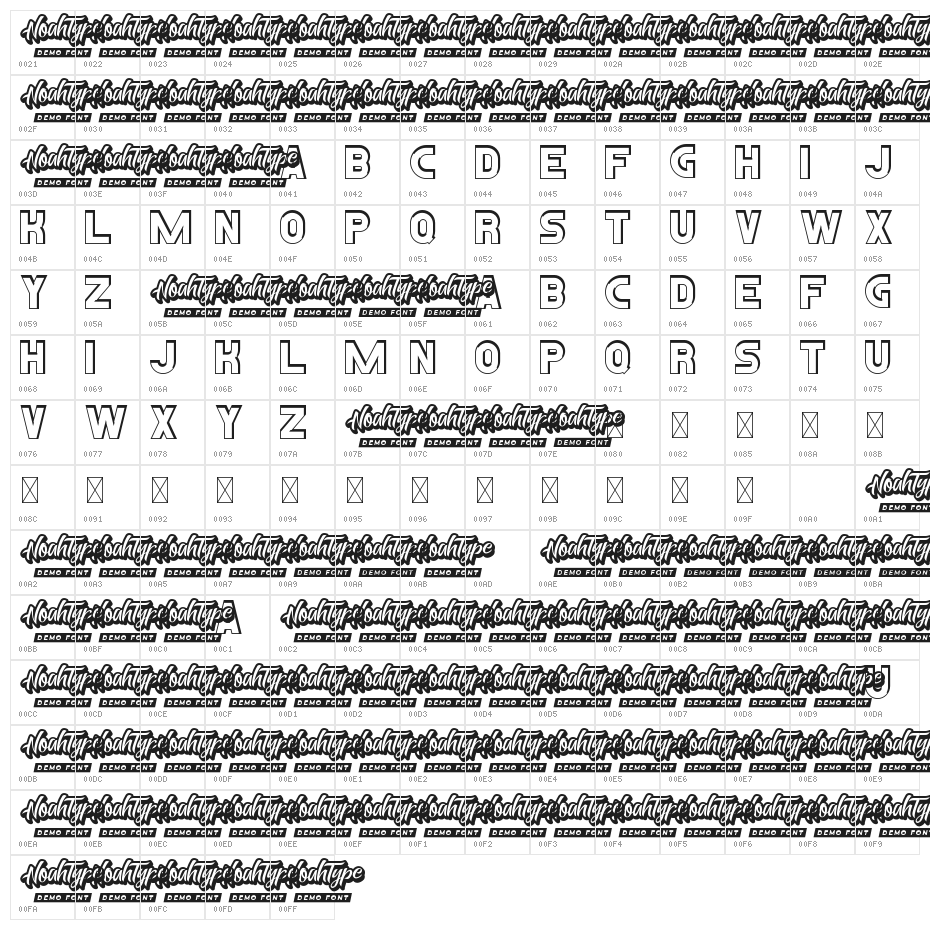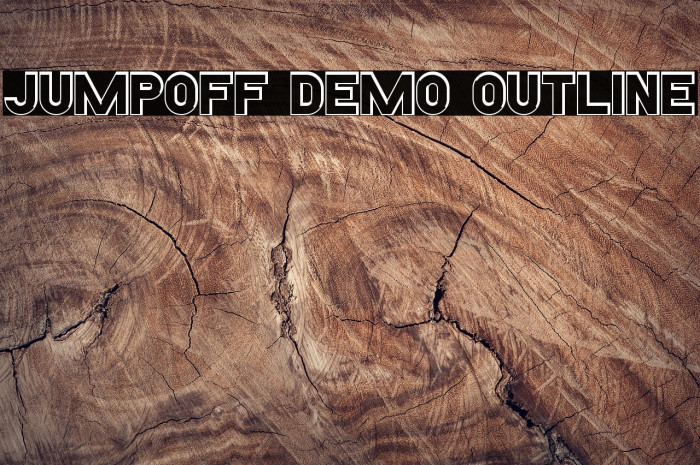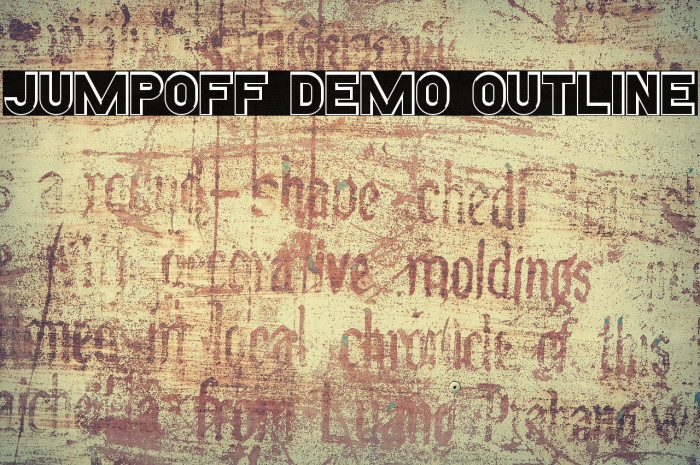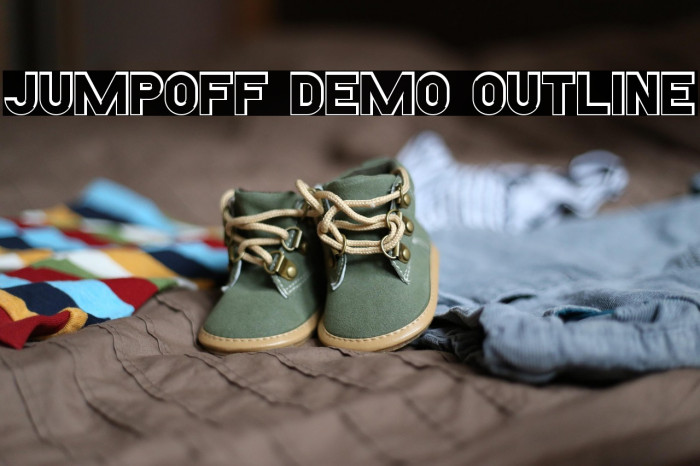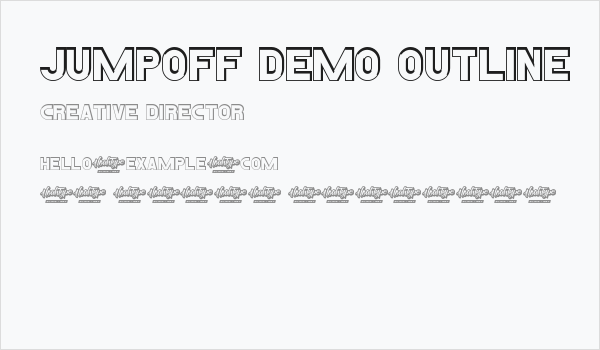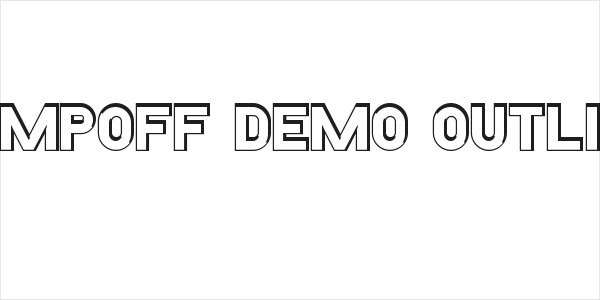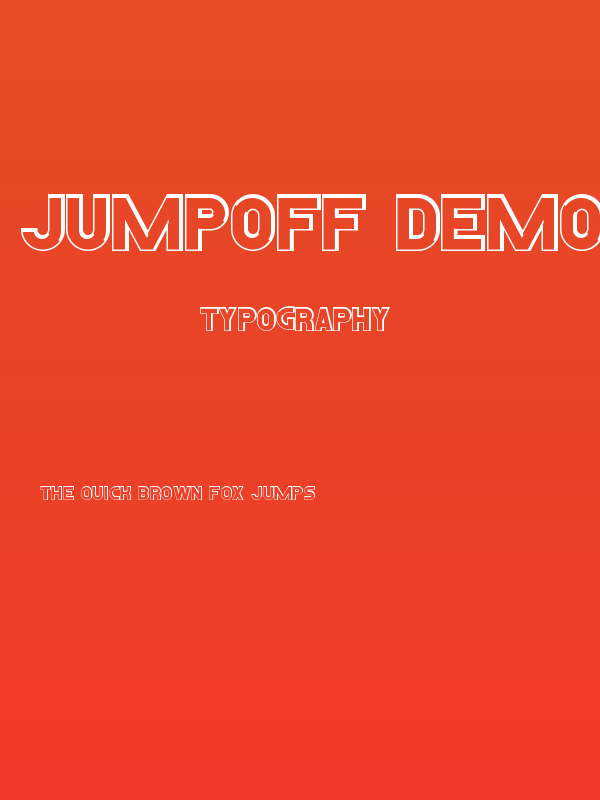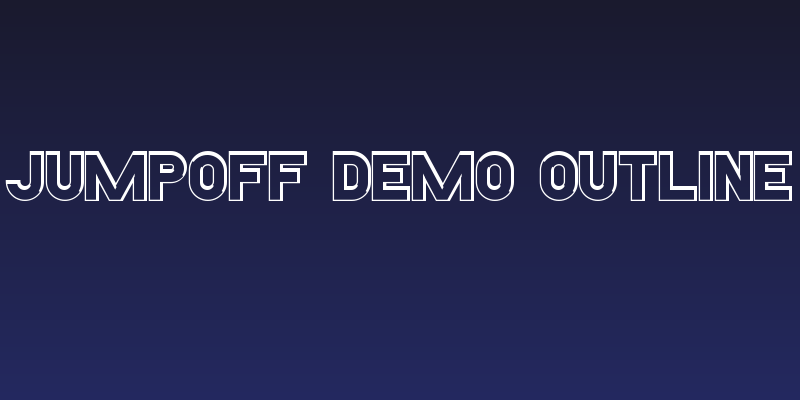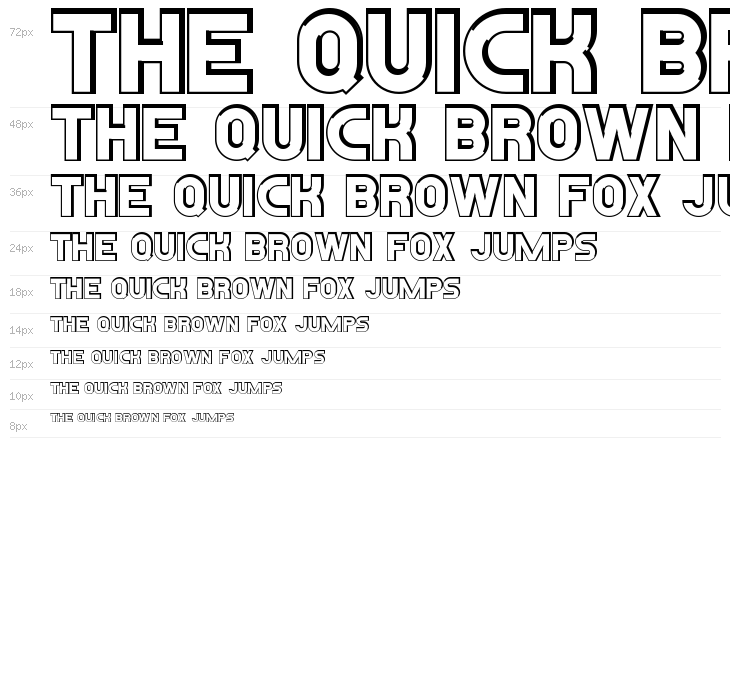
Jumpoff Demo Outline Font
Jumpoff Demo Outline Description
This font features a bold, outlined style that gives it a strong and impactful appearance. The uppercase letters are designed with a geometric precision, creating a modern and dynamic look. The characters are evenly spaced, ensuring readability while maintaining a distinct presence. The outline effect adds depth and dimension, making it suitable for eye-catching designs. Its clean lines and structured form make it versatile for various creative applications. The font's style is both contemporary and versatile, ideal for projects that require a standout typeface.
| Proposed Projects | Ideal for posters, headlines, logos, and branding materials that require a bold and modern look. |